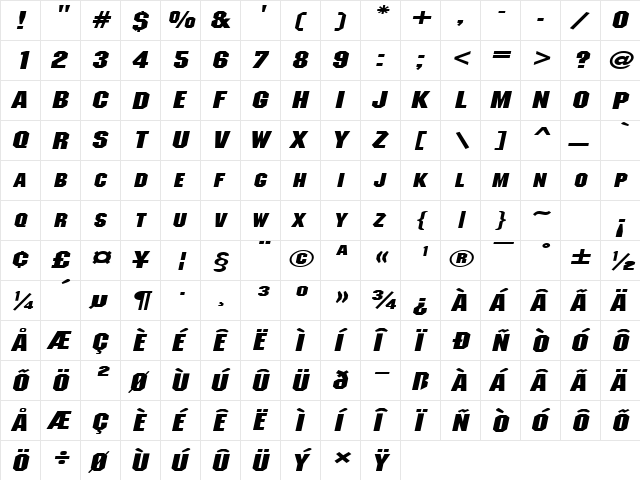
MetalEncasementExtended Italic
Design Context for MetalEncasementExtended Typeface
MetalEncasementExtended takes a measured approach to typography — its balanced proportions and neutral character make it a reliable workhorse for both digital and print work. The slanted form adds forward momentum and visual energy.
Pro Tip: Use MetalEncasementExtended for emphasis, pull quotes, and subheadings where its slanted energy can add rhythm to the layout.